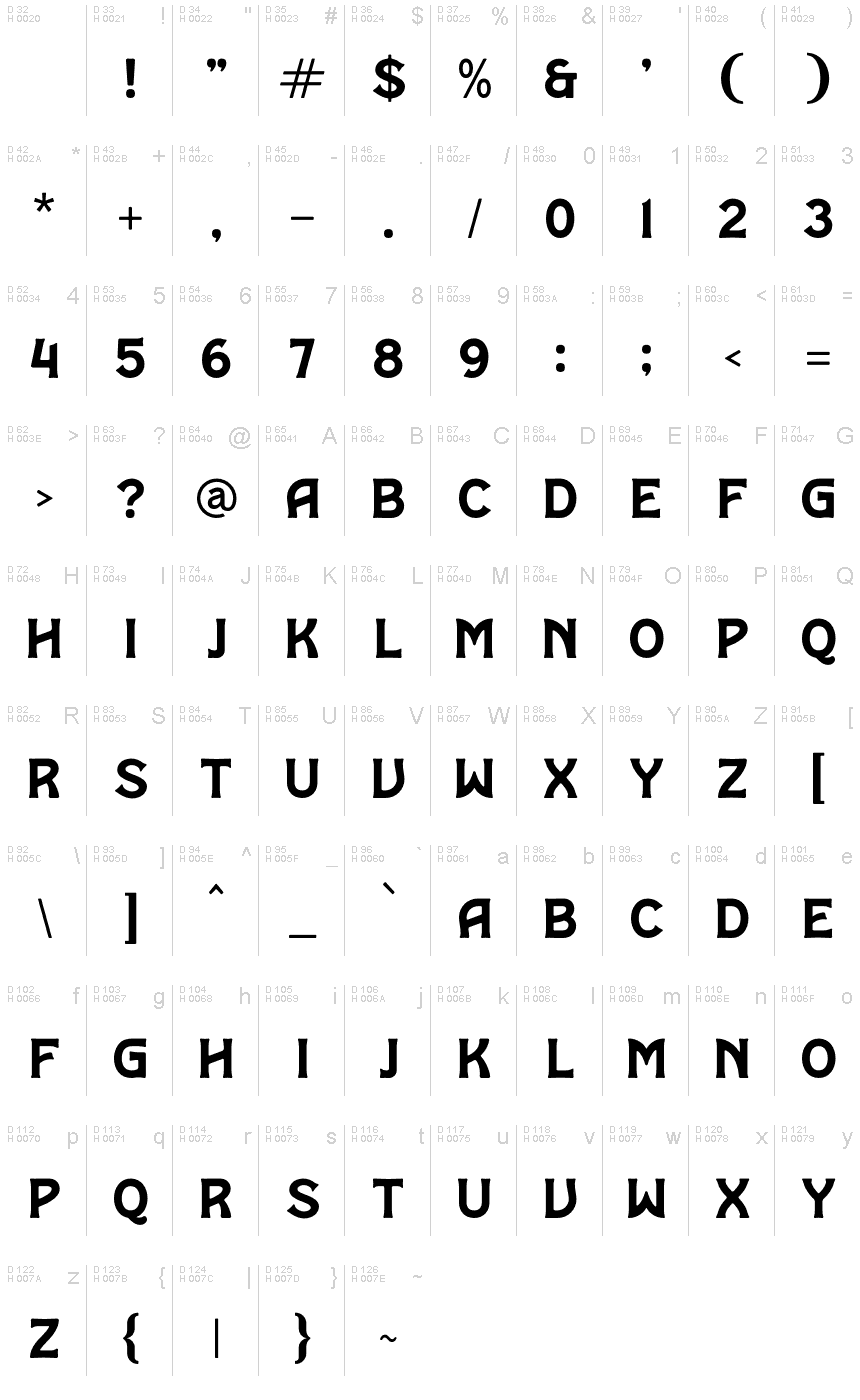
ROLNER, a retro display font crafted by Storytype Studio, brings an air of nostalgia to any project. Its semi-bold weight adds emphasis and character, while the semi-expanded width adds a touch of uniqueness.
Perfect for vintage-inspired designs, ROLNER is ideal for logo creation, packaging design, and branding projects seeking a bold yet playful aesthetic. Whether you're reviving old-school graphics or adding a retro feel to modern layouts, ROLNER will transport your audience back in time with its captivating style.